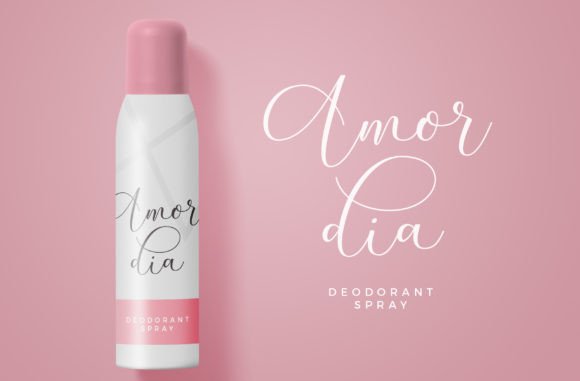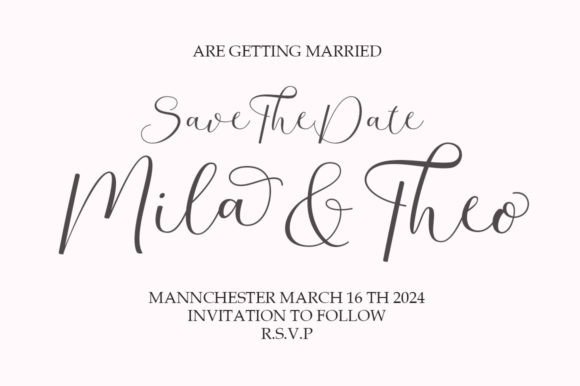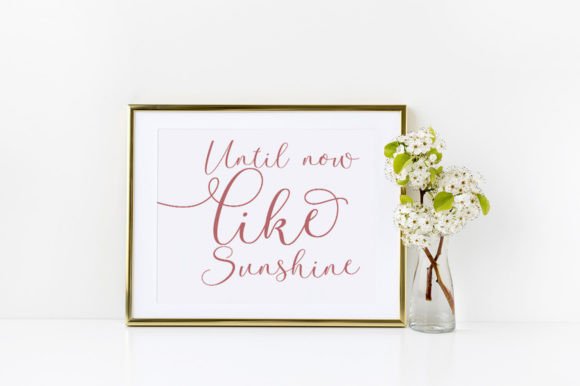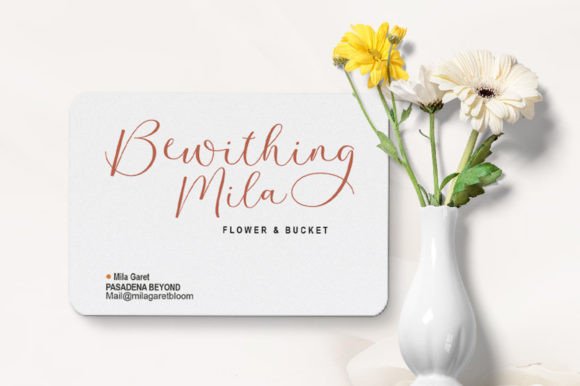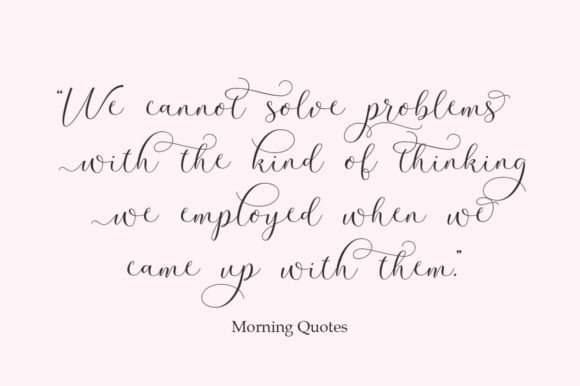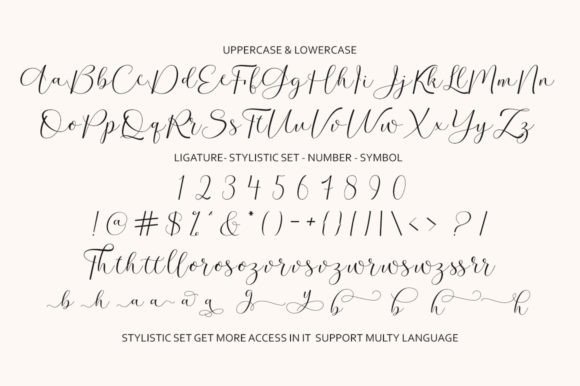
Introducing Girl Anything Font: The Ultimate Modern Calligraphy Love Theme
Are you a designer or crafter looking for a unique and captivating font to elevate your creative projects? Look no further than Girl Anything Font, the latest modern calligraphy love theme that’s taking the design world by storm! As the replacement model for Swirly Love, Girl Anything Font has been updated with special glyphs that combine fantasy and handwritten ink, making it the perfect addition to your font collection.
What Makes Girl Anything Font So Special?
Girl Anything Font is a stunning example of modern calligraphy, with a unique blend of fantasy and handwritten elements. The font features a range of special glyphs, including intricate swashes, flourishes, and ligatures, that give it a truly romantic and whimsical feel. Whether you’re designing wedding invitations, branding materials, or blog titles, Girl Anything Font is sure to add a touch of elegance and sophistication to your work.
One of the best things about Girl Anything Font is its versatility. This beautiful font can be used for a wide range of design projects, including:
- New Year’s designs: Add a touch of glamour to your New Year’s Eve invitations, party decorations, and social media posts with Girl Anything Font.
- Weddings: Make your wedding designs truly unforgettable with this stunning font. Use it for wedding invitations, save-the-date cards, and ceremony programs.
- Branding materials: Elevate your brand with a unique and eye-catching font. Use Girl Anything Font for logos, business cards, and packaging design.
- Blog titles: Add a touch of personality to your blog with Girl Anything Font. Use it for blog titles, headings, and quotes.
- Invitations: Whether you’re designing invitations for a party, baby shower, or special event, Girl Anything Font is sure to make a lasting impression.
- Business cards: Stand out from the crowd with a beautifully designed business card featuring Girl Anything Font.
Why Choose Girl Anything Font?
With so many fonts to choose from, why should you choose Girl Anything Font? Here are just a few reasons why this font stands out from the rest:
- Unique and eye-catching design: Girl Anything Font features a truly unique and eye-catching design that’s sure to grab attention.
- High-quality glyphs: The font includes a range of high-quality glyphs, including swashes, flourishes, and ligatures, that give it a truly professional look and feel.
- Versatile: This font can be used for a wide range of design projects, making it a great addition to any font collection.
Tips for Using Girl Anything Font
Here are a few tips for getting the most out of Girl Anything Font:
- Experiment with different sizes and colors: Girl Anything Font looks beautiful in a range of sizes and colors. Experiment with different combinations to find the one that works best for your design.
- Pair it with other fonts: Girl Anything Font pairs beautifully with other fonts. Try pairing it with a simple sans-serif font for a striking contrast.
- Use it for headings and titles: Girl Anything Font is perfect for headings and titles. Use it to add a touch of elegance and sophistication to your design.